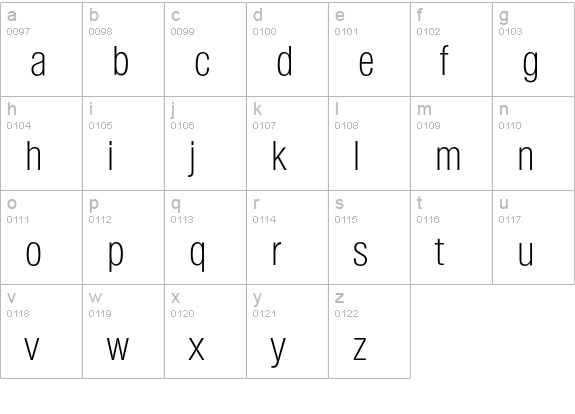
Colympia-Xlight Font Details
Introducing Colympia-Xlight, a sleek and modern font designed to bring a touch of sophistication to your projects. With its delicate and elegant appearance, Colympia-Xlight is perfect for creating refined and stylish designs that stand out from the crowd. This font features clean lines and a minimalist aesthetic, making it versatile and suitable for a wide range of applications. The best part? Colympia-Xlight is completely free to download at FontsMarket.com, allowing you to easily access this premium-quality font without breaking the bank. Whether you're working on a branding project, designing a website, or creating invitations, Colympia-Xlight is sure to elevate your work and make a lasting impression. Don't miss out on the opportunity to add this beautiful font to your collection. Download Colympia-Xlight today and take your designs to the next level!